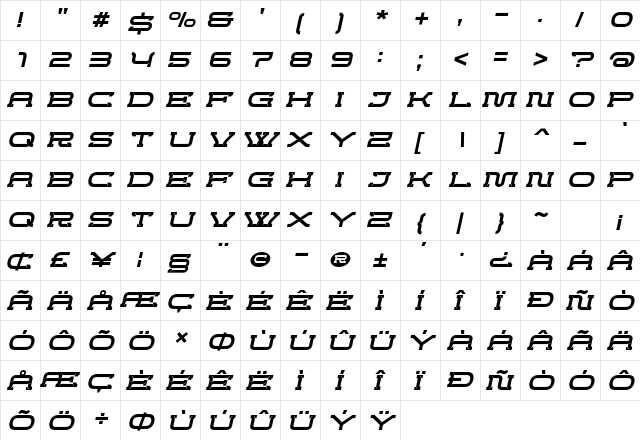
Creword Italic
| Foundry | 7NTypes |
| Designer | Situjuh Nazara |
Design Context for Creword Typeface
Creword takes a measured approach to typography — its balanced proportions and neutral character make it a reliable workhorse for both digital and print work. The slanted form adds forward momentum and visual energy.
Pro Tip: Try Creword for annotation and caption copy alongside an upright companion — the contrast in angle creates a dynamic but ordered typographic system.